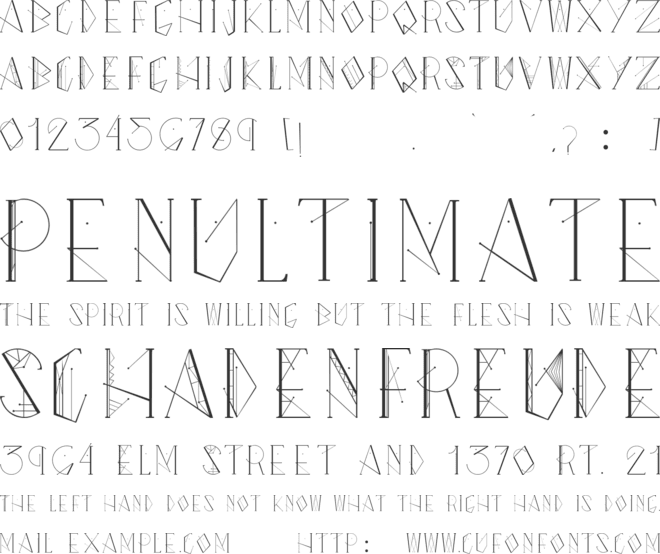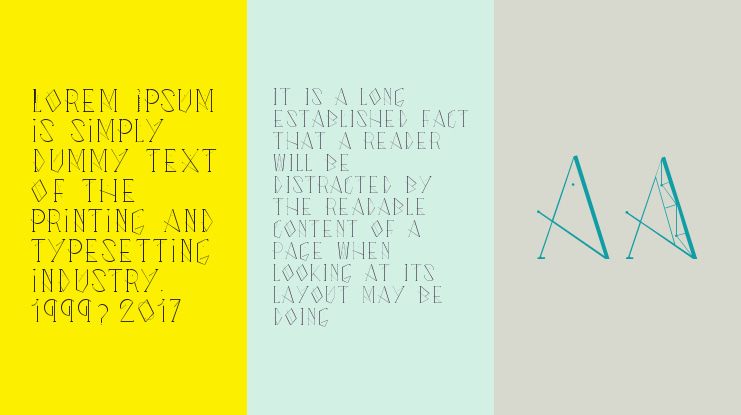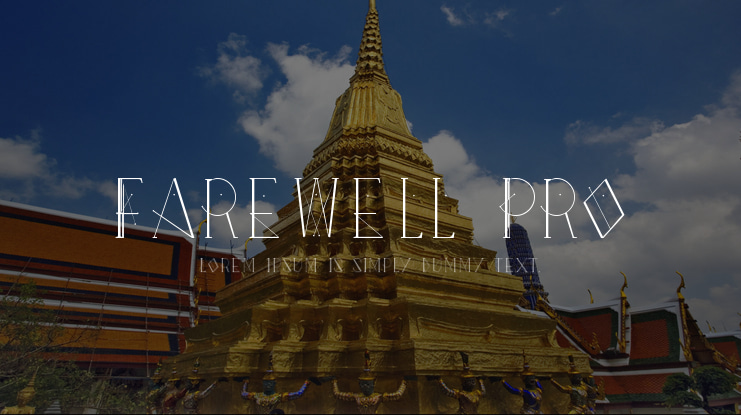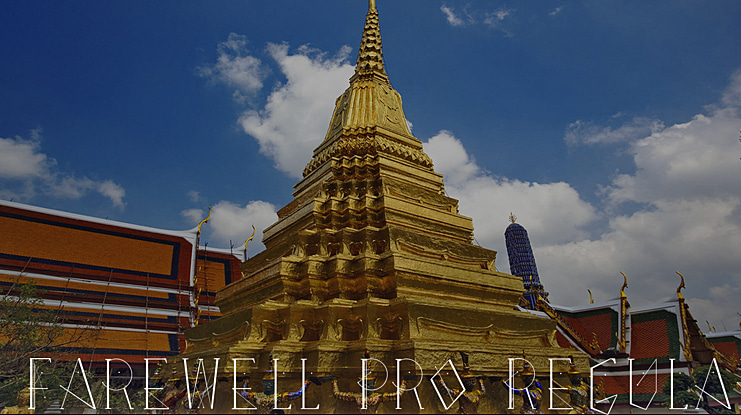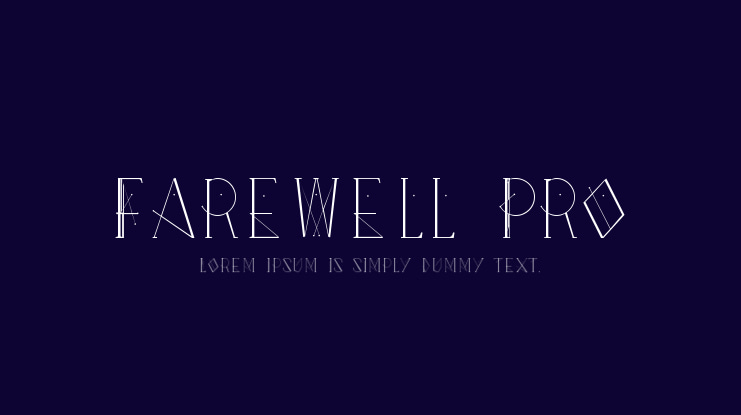
Farewell Pro Font
After one year of Farewell Regular, I decided to release Farewell Pro. This a new version of the font with changes in a few letters that improve the writing on the screen. I recommend to use it in short texts, titles and posters. Enjoy it!